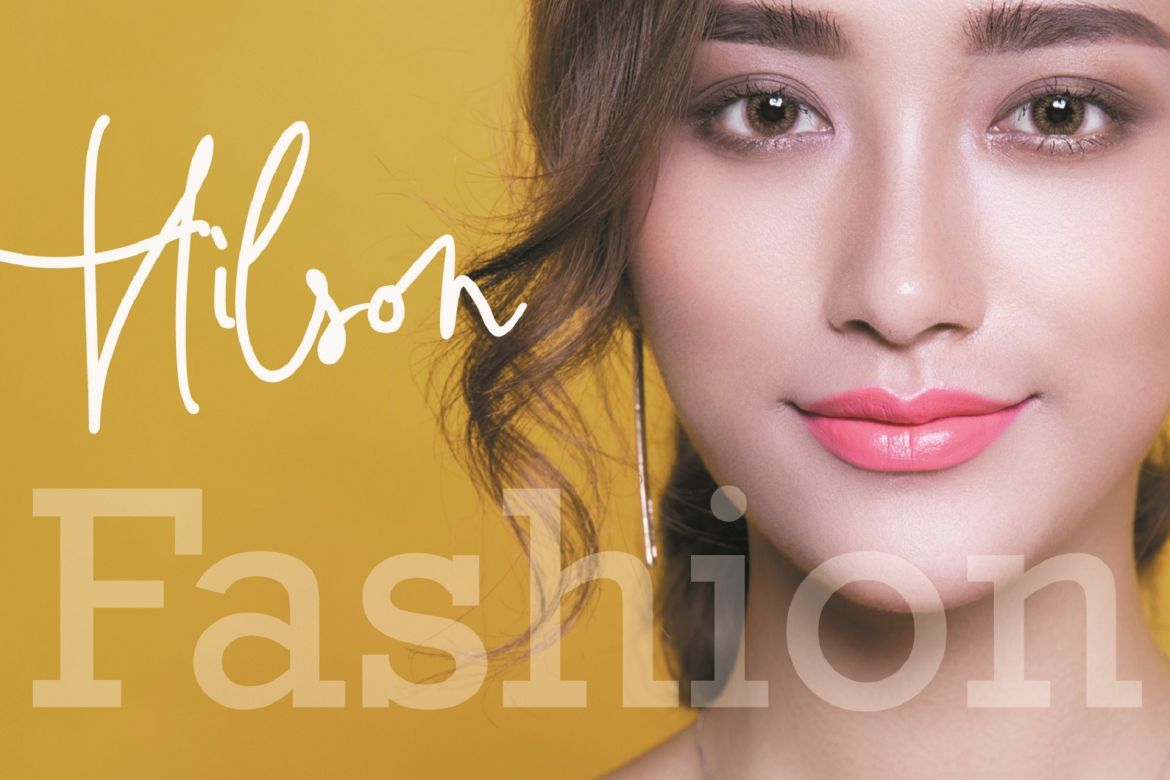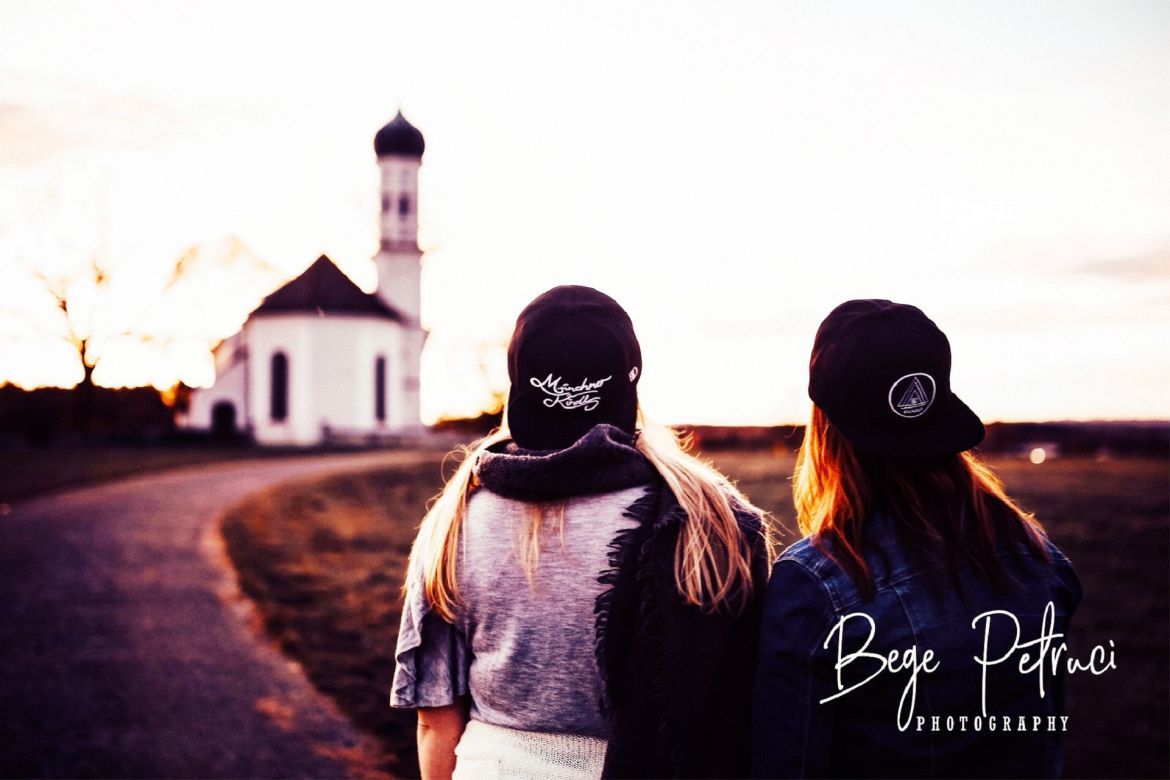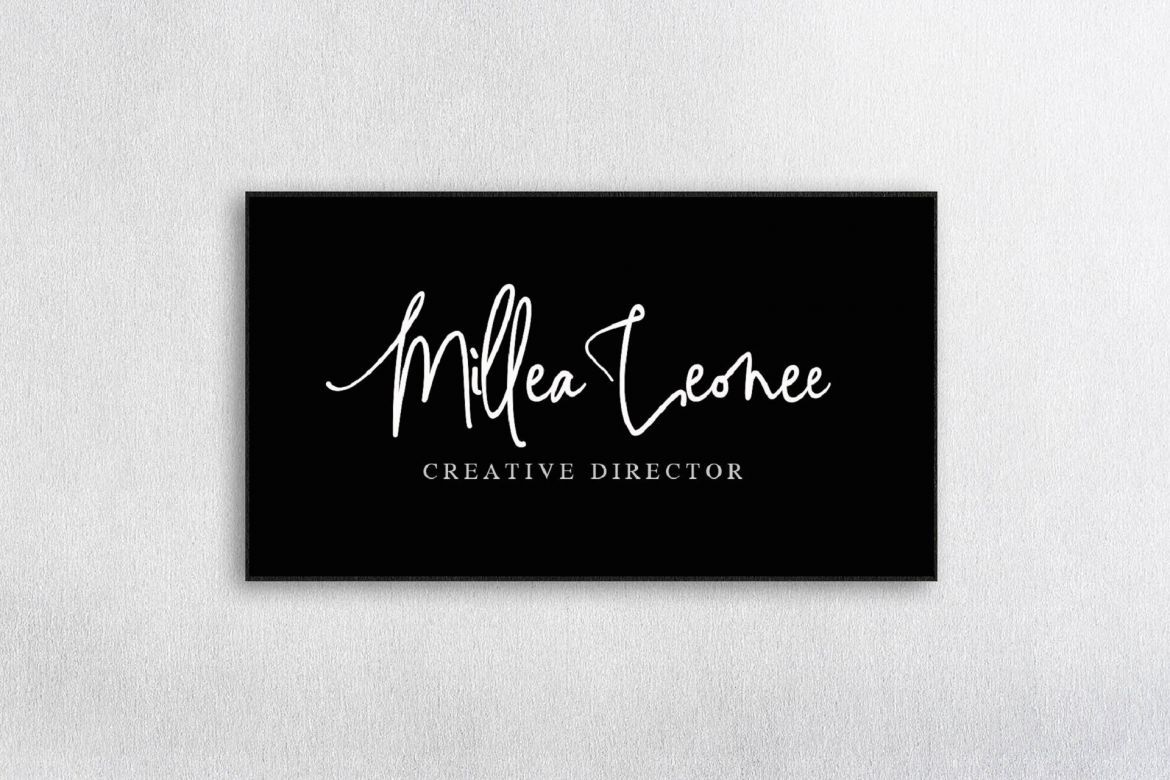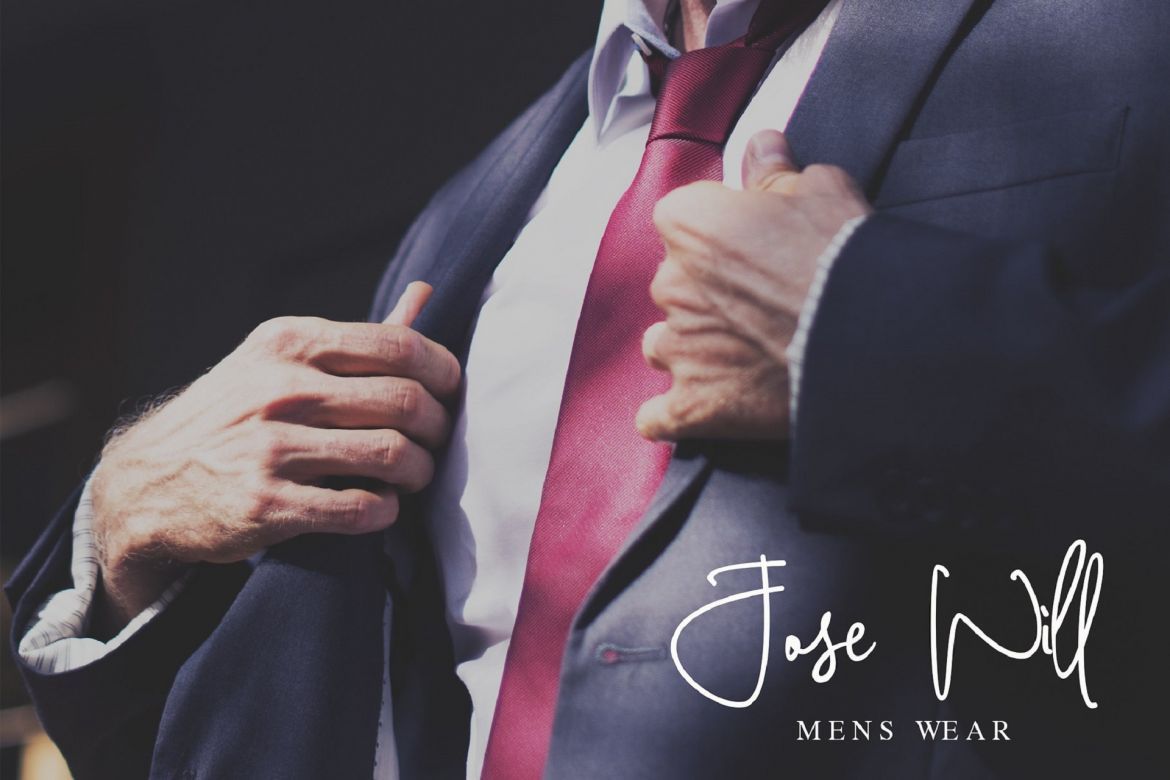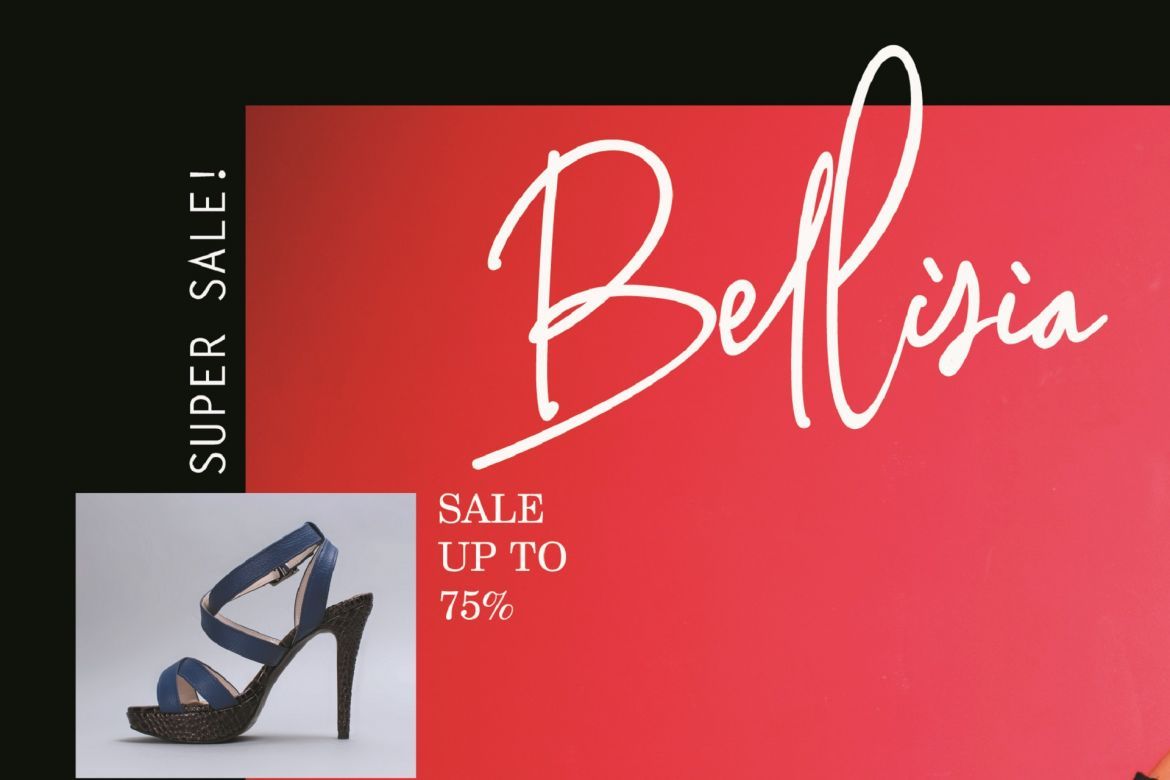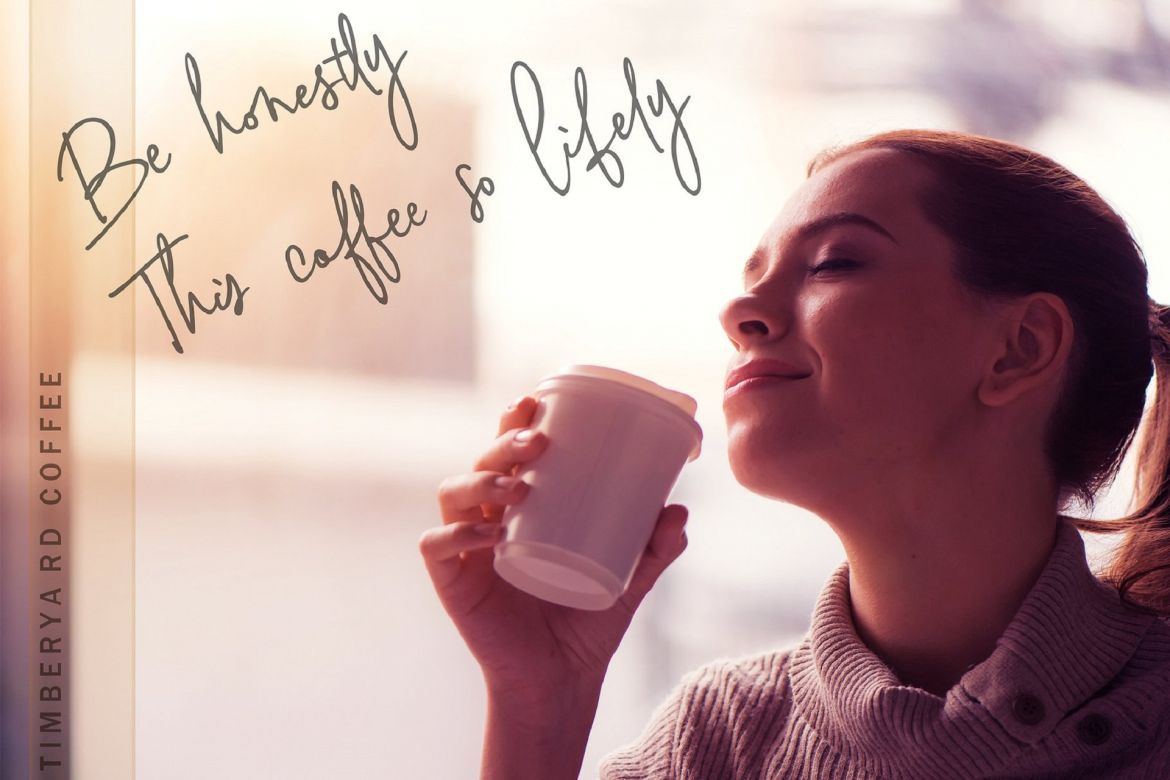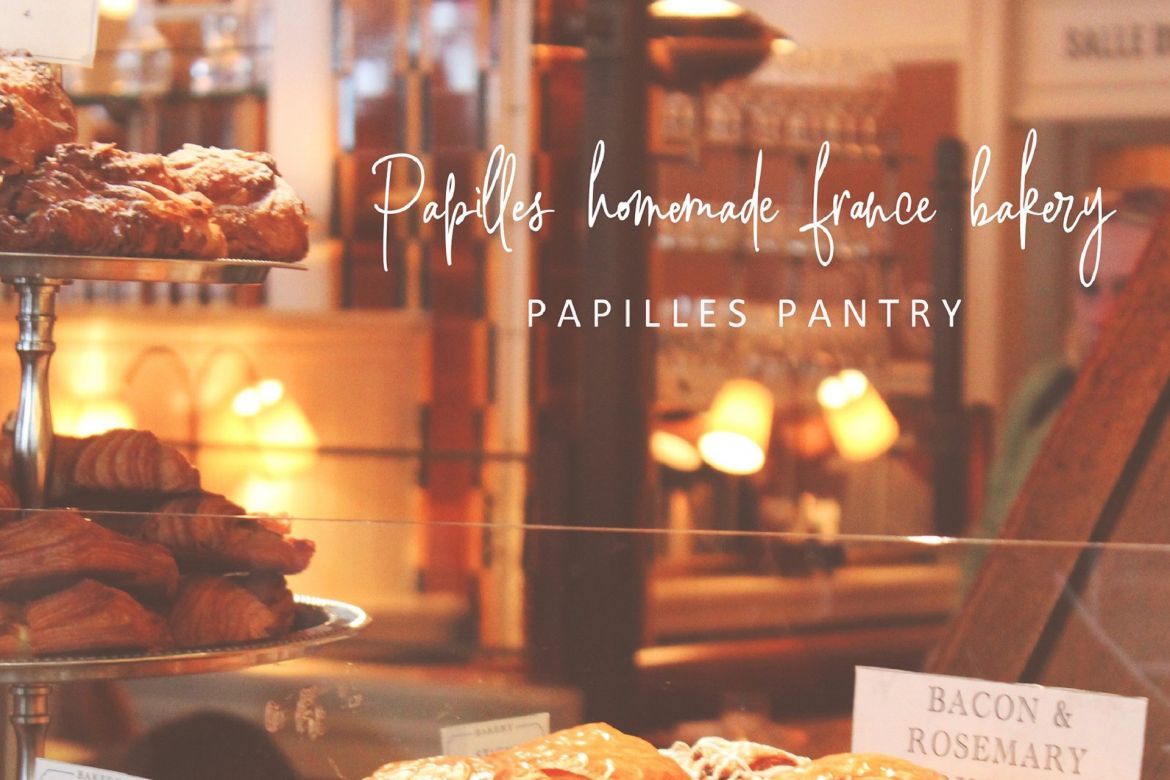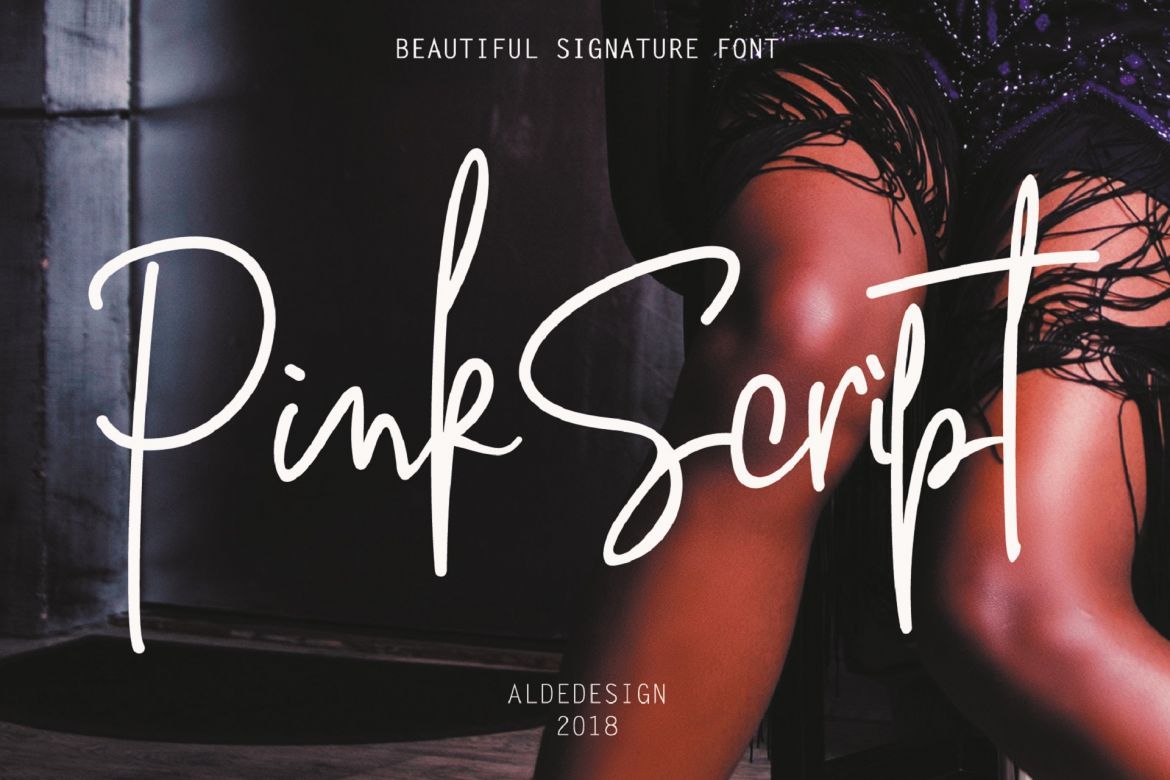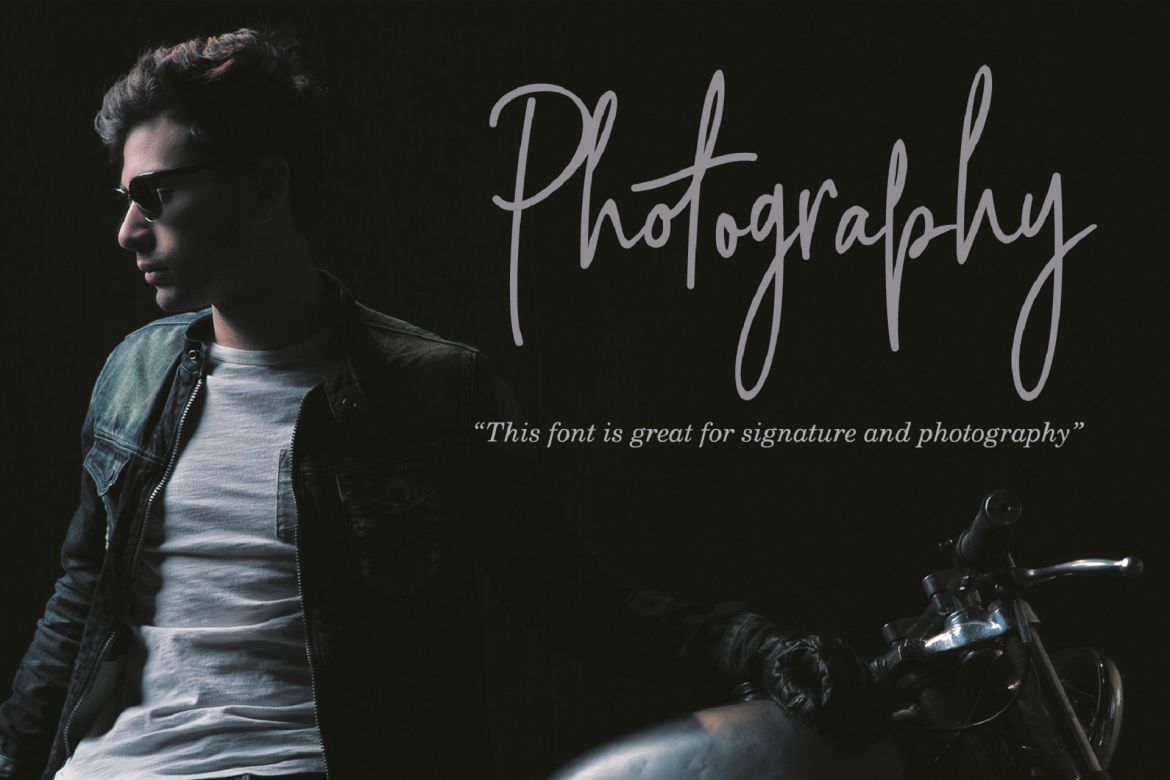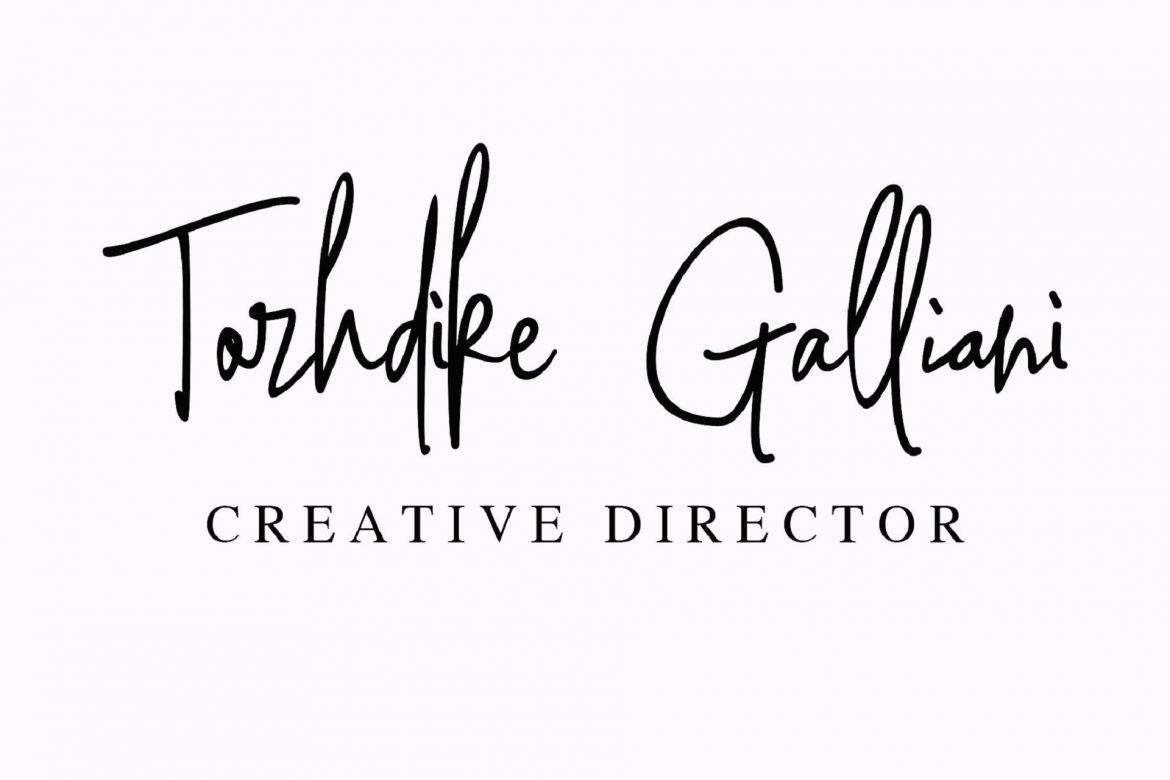
Pink Script - Signature Font
Pink Script - A fashionable and quirky new handwriting font script. Pink Script font was created to look as close to a natural handwritten script as possible by including over 100 ligatures, and a full set of lowercase alternates.
• each font has: stylish handwritten style, beautiful swash (ending tail), beautiful titling (beginning tail), special ligatures, multilingual support